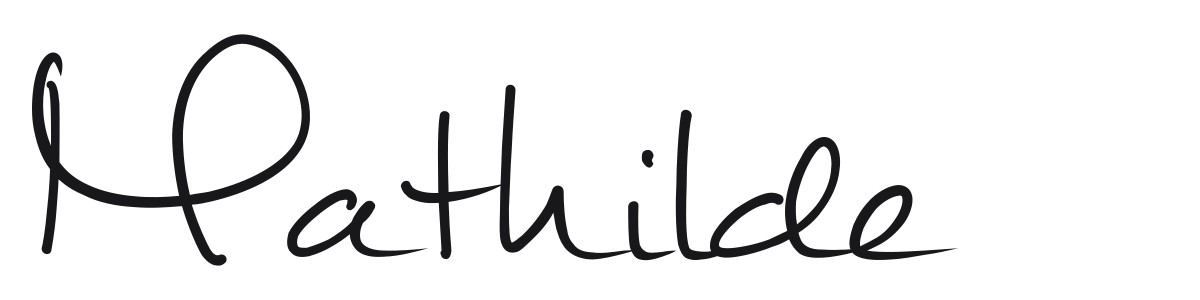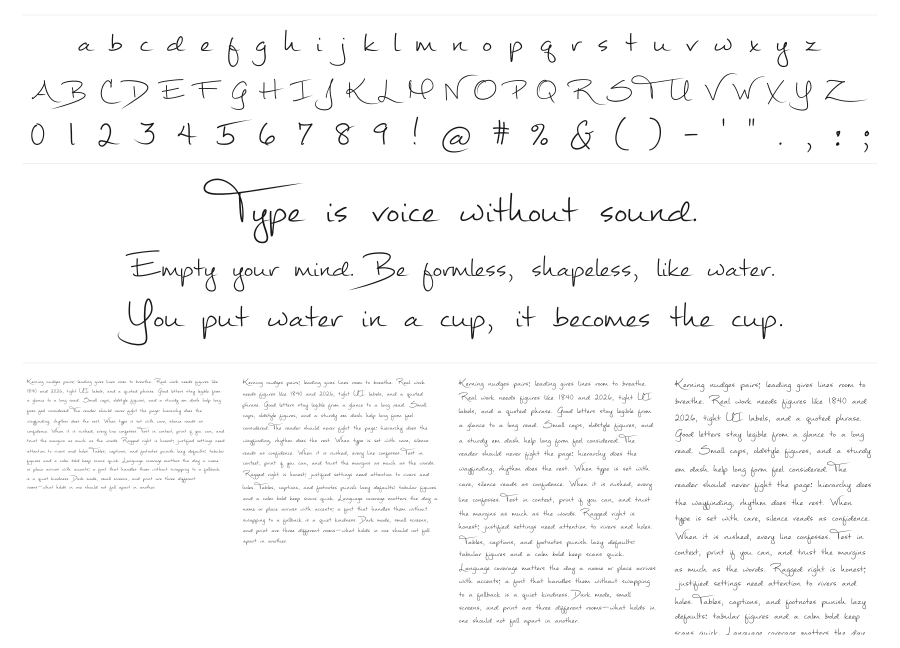
Mathilde
Mathilde is a thin, monoline handwritten face by Lee Batchelor with the flowing, unhurried quality of a real signature. The lightweight strokes feel feminine and elegant without being fussy, keeping things personal and readable. A natural choice for branding, invitations, and anywhere a genuine handwritten touch matters more than polish.